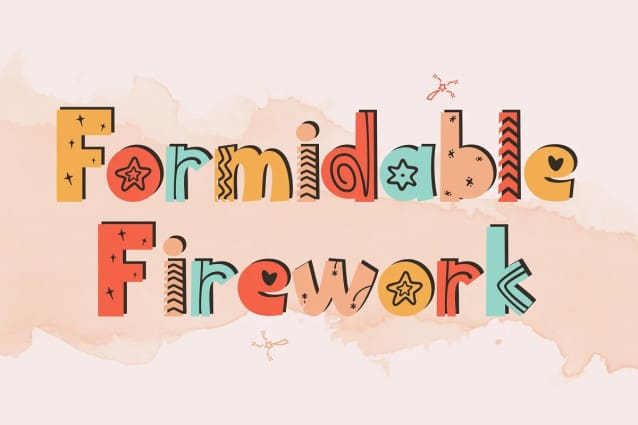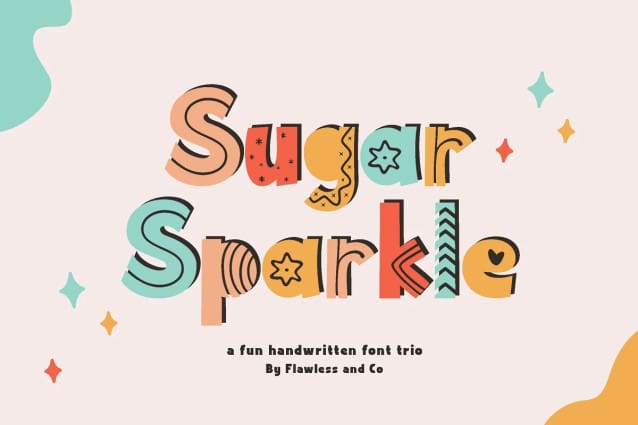
Sugar Sparkle Font
Sugar Sparkle Font, where the joy of handwritten charm meets the versatility of three distinctive styles – Regular, Solid, and Fun — adorned with patterns in fun styles that add an extra layer of delight to your designs. This delightful font is more than just a typeface; it’s a celebration of creativity, offering a playful touch to your designs with a variety of patterns to sweeten the deal.